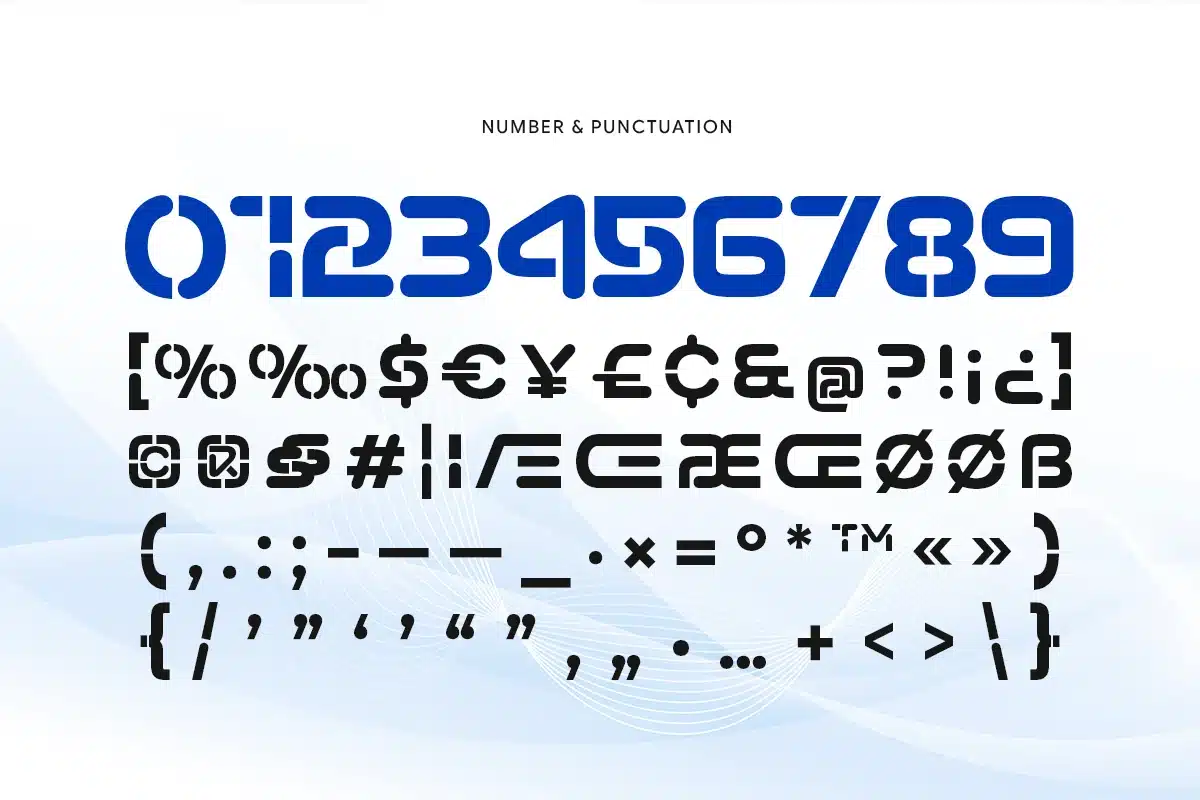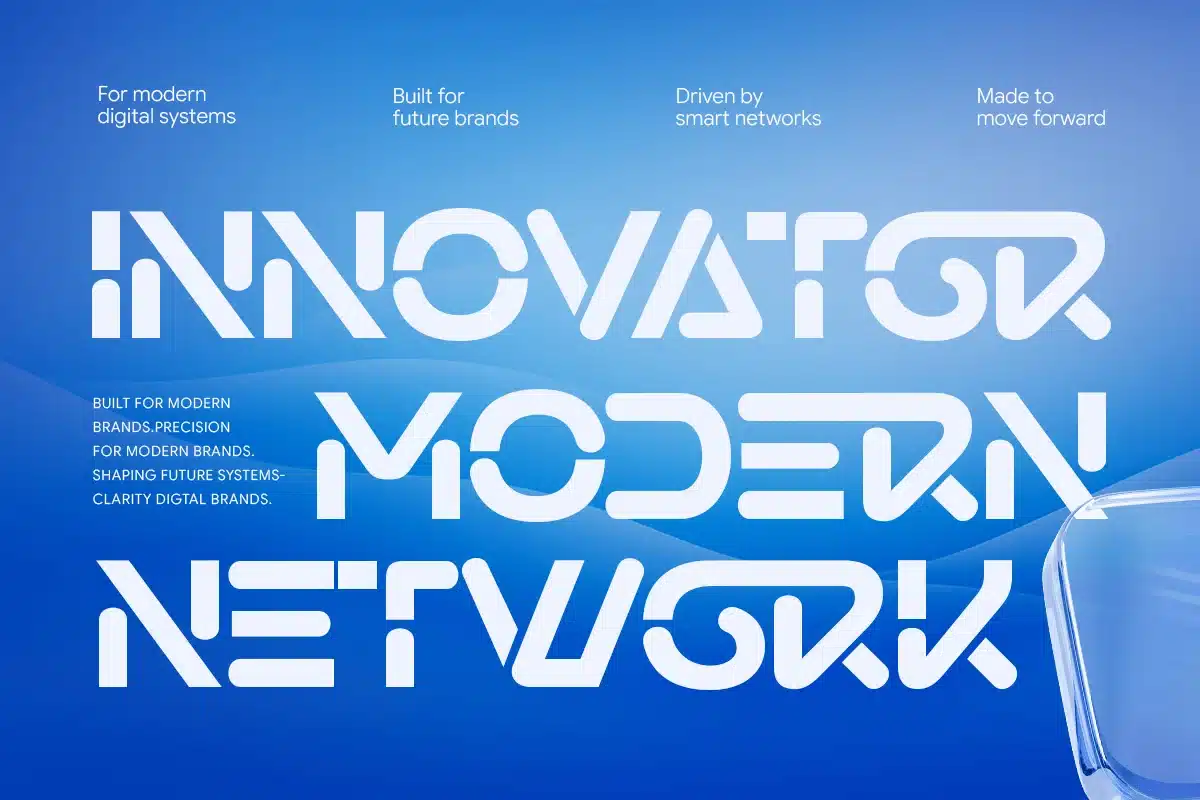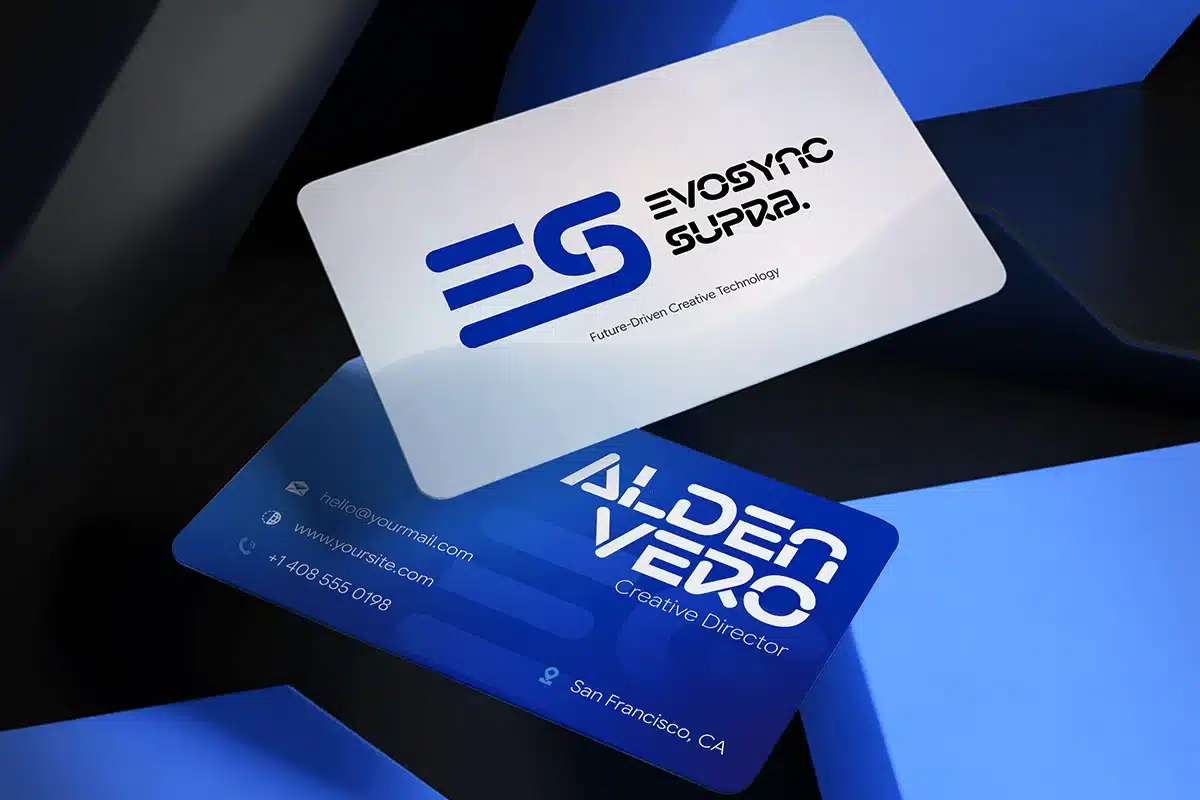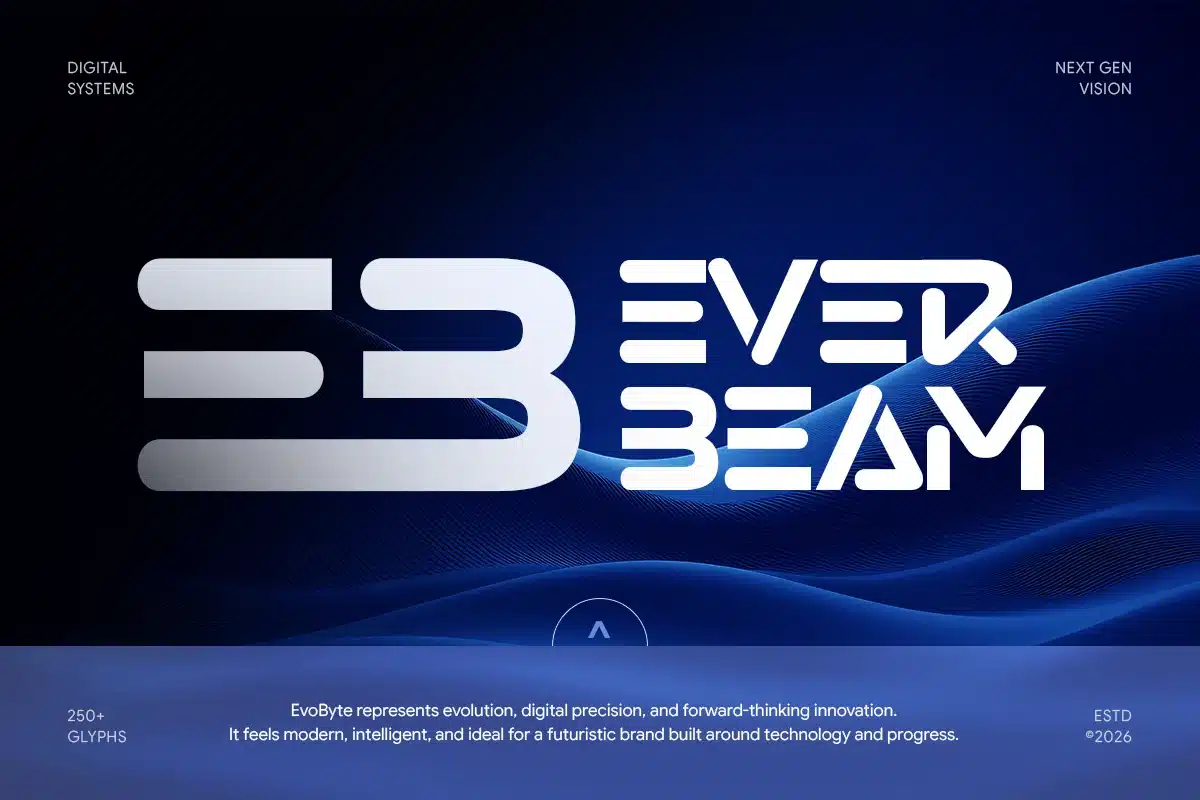
Mornes – Logo Stencil Tech Font
Mornes is a modern stencil tech font designed with a futuristic and industrial aesthetic. Featuring sharp cuts, clean geometric shapes, and a strong technological character, Mornes is perfect for logos, branding, esports, digital products, and innovative design projects that require a bold and cutting-edge identity.
Blending stencil style with advanced tech-inspired design, Mornes creates a powerful and dynamic visual presence. Its structured letterforms ensure clarity and readability while maintaining a unique and distinctive look, making it ideal for startups, gaming brands, cyber themes, and modern corporate visuals.
Mornes – Logo Stencil Tech Font Features:
- Futuristic stencil style with tech-inspired design
- Clean geometric shapes and sharp character cuts
- Ideal for logos, esports, gaming, and digital branding
- Strong structure with modern and dynamic feel
- Perfect for technology, startup, and cyber-style visuals
Create a bold digital identity with Mornes – the stencil tech font built for modern and futuristic design.